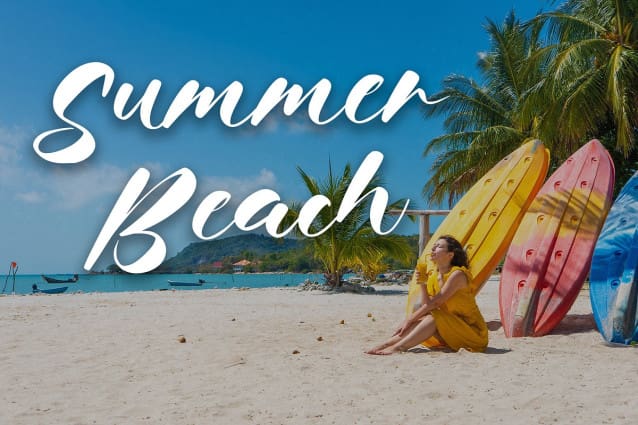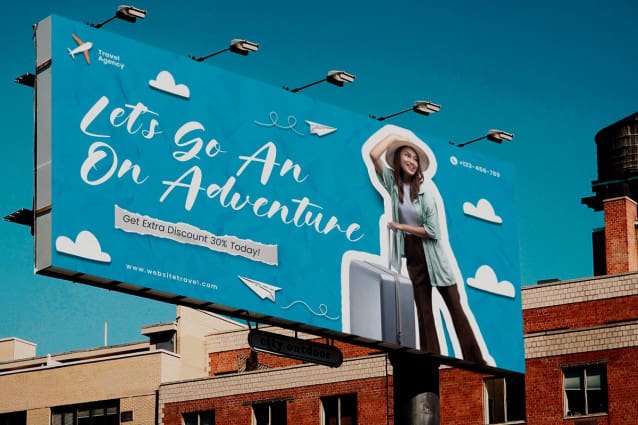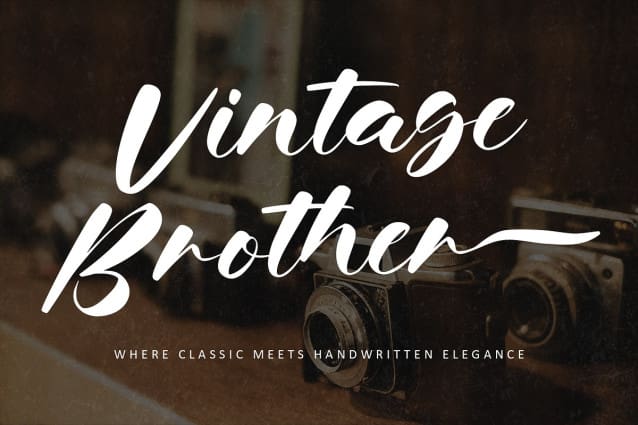
Vintage Brother Font
Vintage Brother Font, a handwritten font that radiates timeless charm and authenticity. Its fluid, handcrafted strokes, and natural texture bring a touch of nostalgia and elegance to your projects. Ideal for logos, posters, packaging, and any creative endeavor that demands an elegant, stylish touch. Vintage Brother‘s smooth flow and expressive glyphs convey character and vigor, making it perfect for capturing attention and adding a unique flair. With PUA encoding, you can easily access all the distinctive features. Elevate your designs with Vintage Brother, and infuse them with the effortless charm of handcrafted beauty.